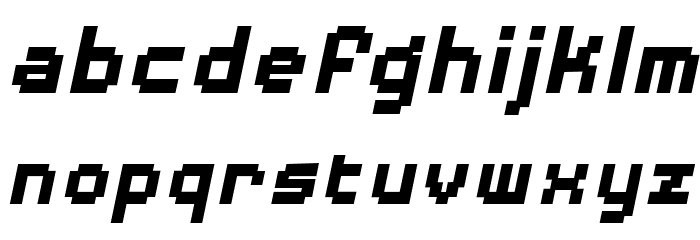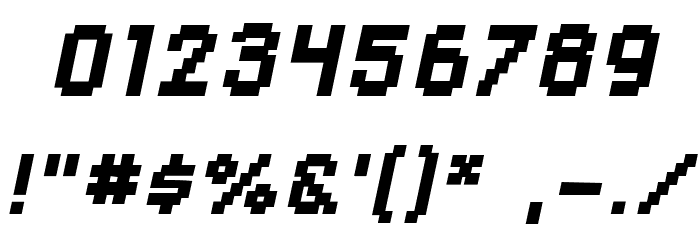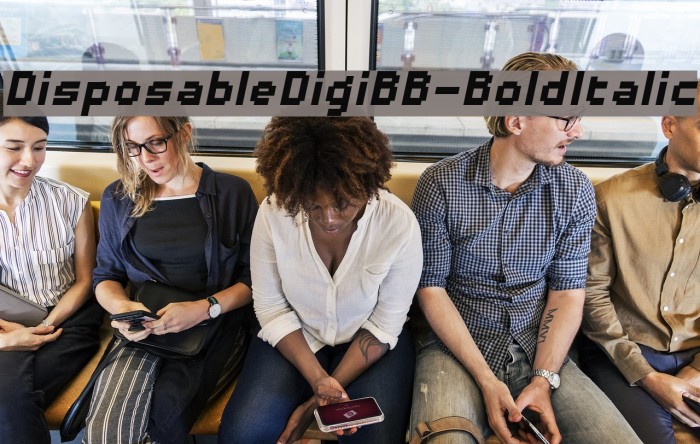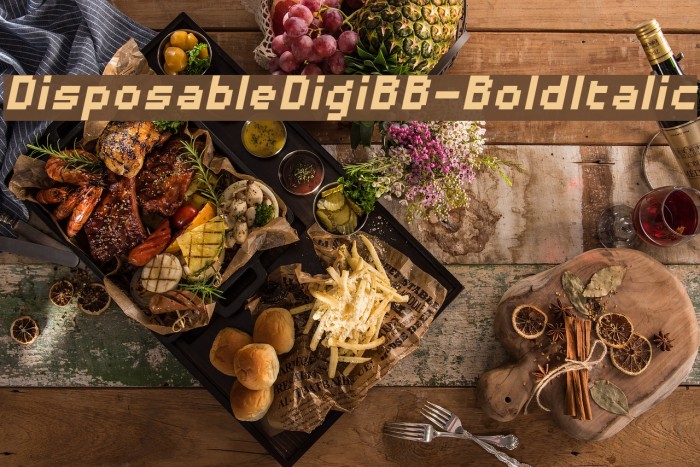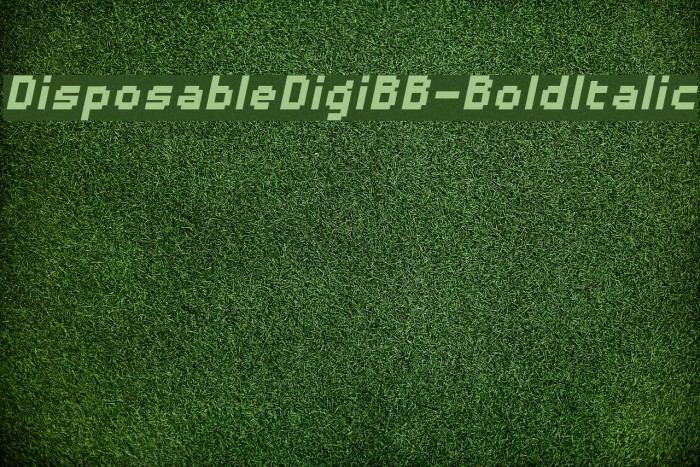
DisposableDigiBB-BoldItalic Font
This font features a bold and italicized style with a distinct digital or pixelated appearance. The characters are constructed with sharp, angular edges, reminiscent of early digital displays or retro video game graphics. The uppercase and lowercase letters maintain a consistent geometric form, while the numbers and special characters follow the same pixelated aesthetic. Its boldness and slanted design give it a dynamic and energetic feel, making it stand out in any context. The font's unique style is both nostalgic and modern, capturing the essence of digital art and technology.
A bold, italicized font with a pixelated, digital aesthetic.
- Proposed Projects: Ideal for retro-themed designs, video game graphics, digital art projects, and tech-related branding.
- Use Case: Logos, Headlines, Digital Art